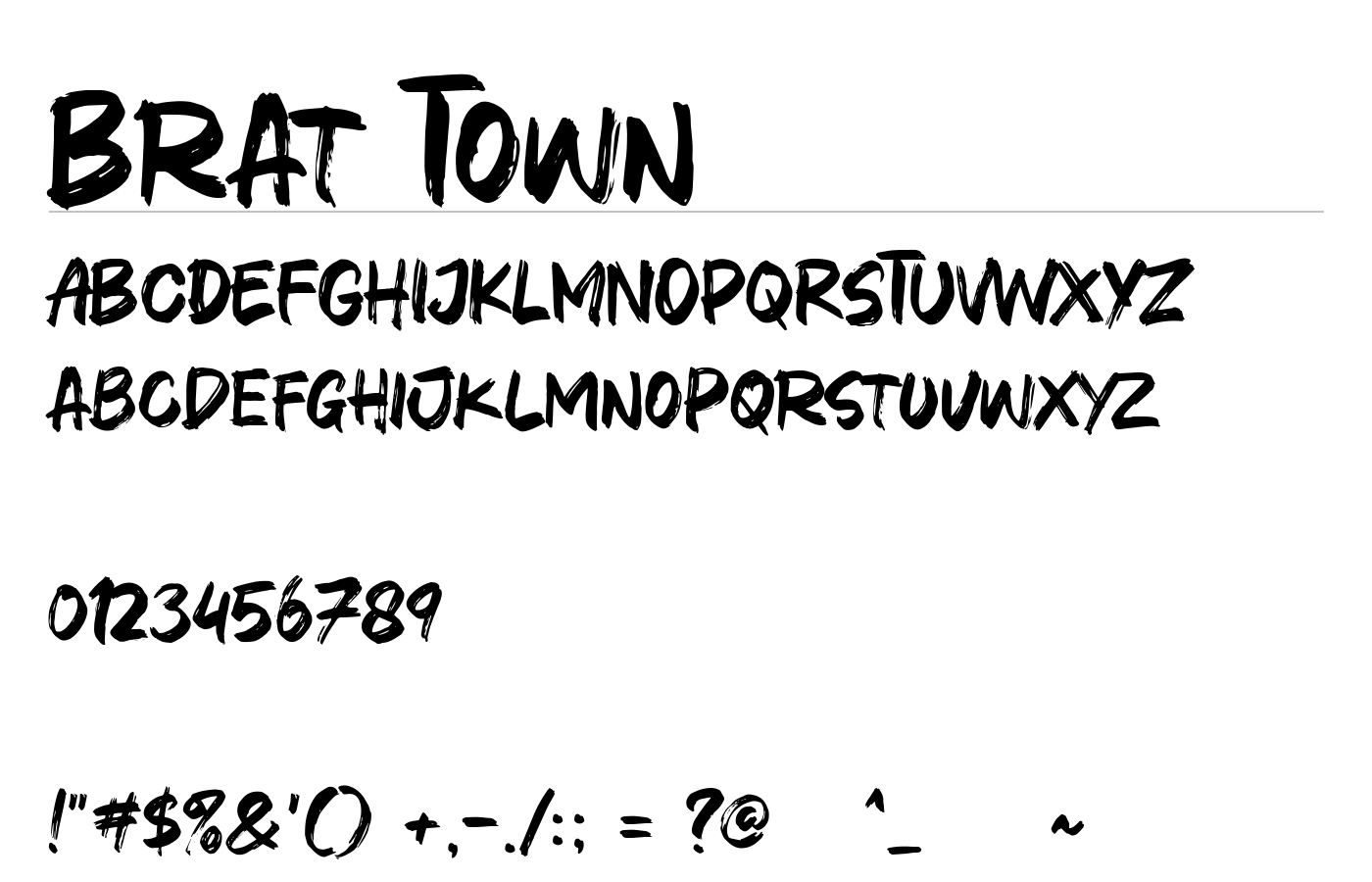
Brat Town is a bold, hand-drawn sans serif font with a playful and edgy vibe, featuring brushstroke textures that give it an energetic, informal feel. Its uneven shapes and strong strokes make it ideal for creative projects, streetwear branding, or eye-catching headlines that want to convey personality and a casual, artistic tone. This font works best in designs looking to make a lively, youthful statement with a hand-crafted touch.
Brat Town Font
About Brat Town Font